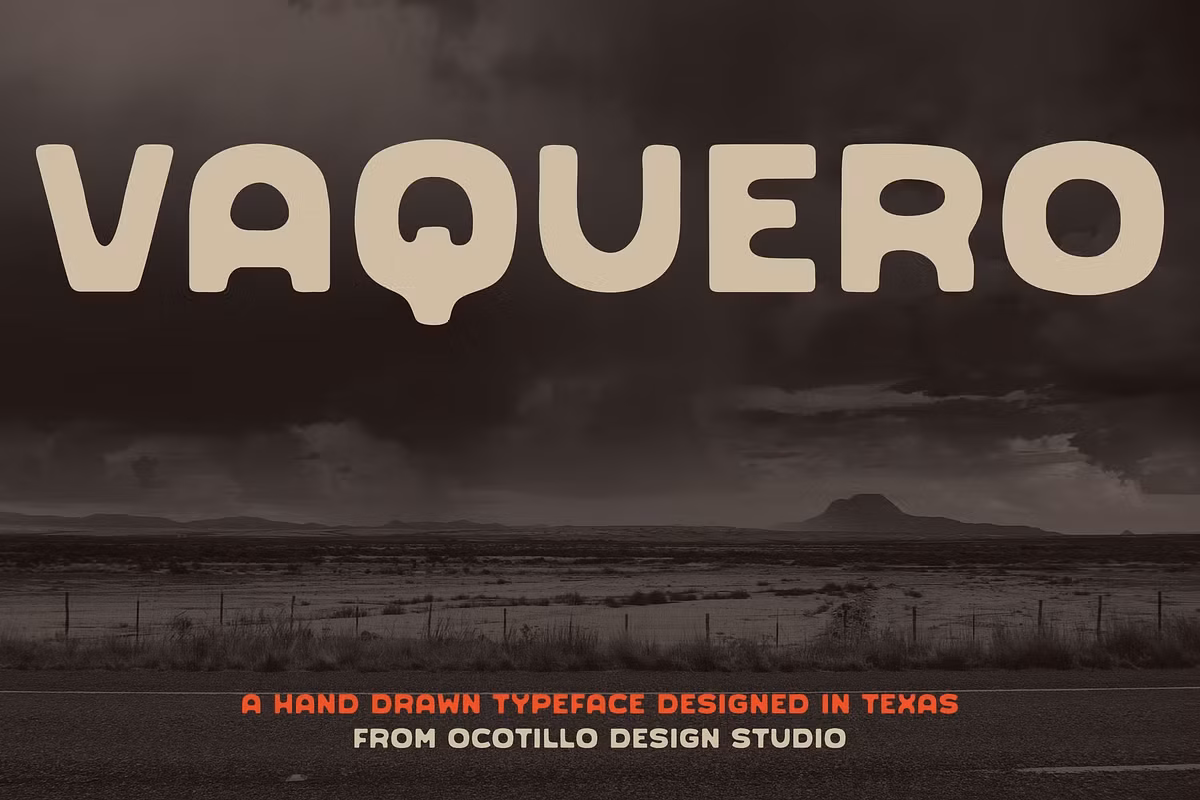
Please note that you must purchase this font for commercial use. You can download VAQUERO by Ocotillo Design Studio for free, strictly for personal testing purposes only. VAQUERO is a bold, rustic display font designed with a western flair. With its strong lines and vintage details, VAQUERO Font Free Download is perfect for projects that need a touch of rugged, cowboy-inspired design, such as logos, posters, branding, and event invitations.
This font captures the essence of the Old West, making it ideal for designs related to outdoor adventures, rustic themes, or western-style events. It includes uppercase and lowercase letters, numerals, punctuation, and multilingual support, providing versatility for various design projects.
Whether you're working on western-themed branding, crafting vintage-inspired promotional materials, or creating unique event invitations, VAQUERO brings a bold, adventurous spirit to your typography.